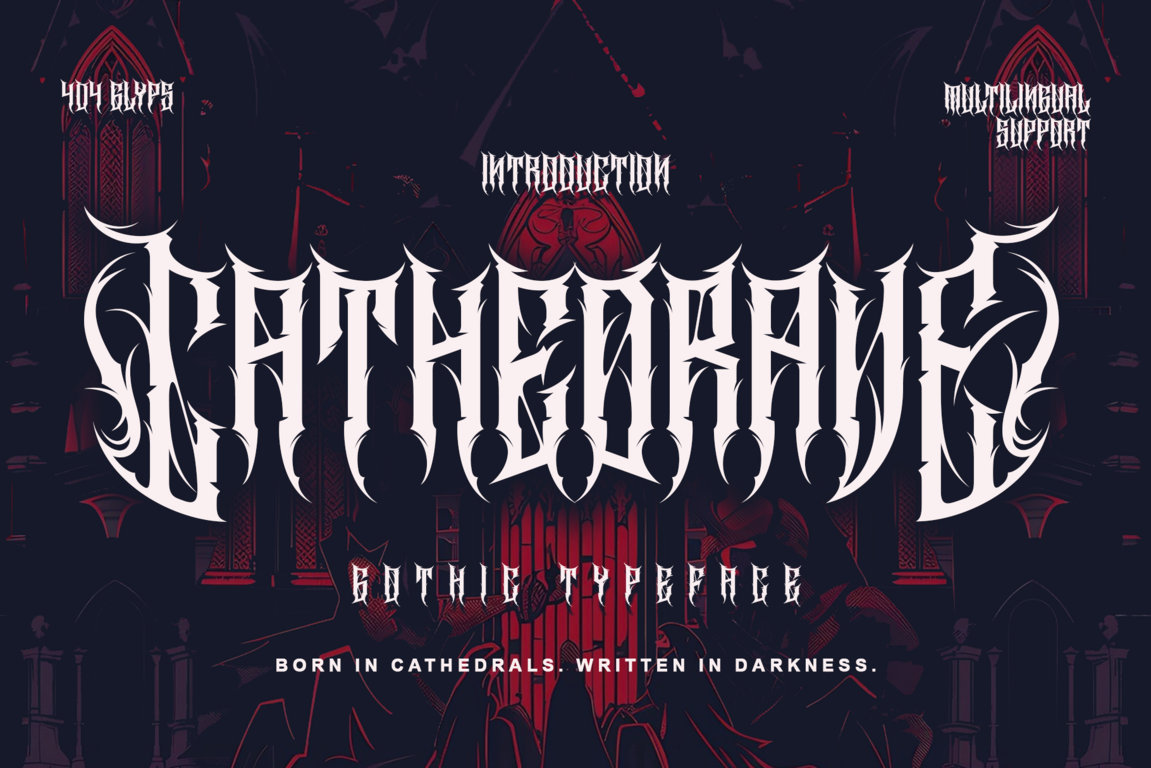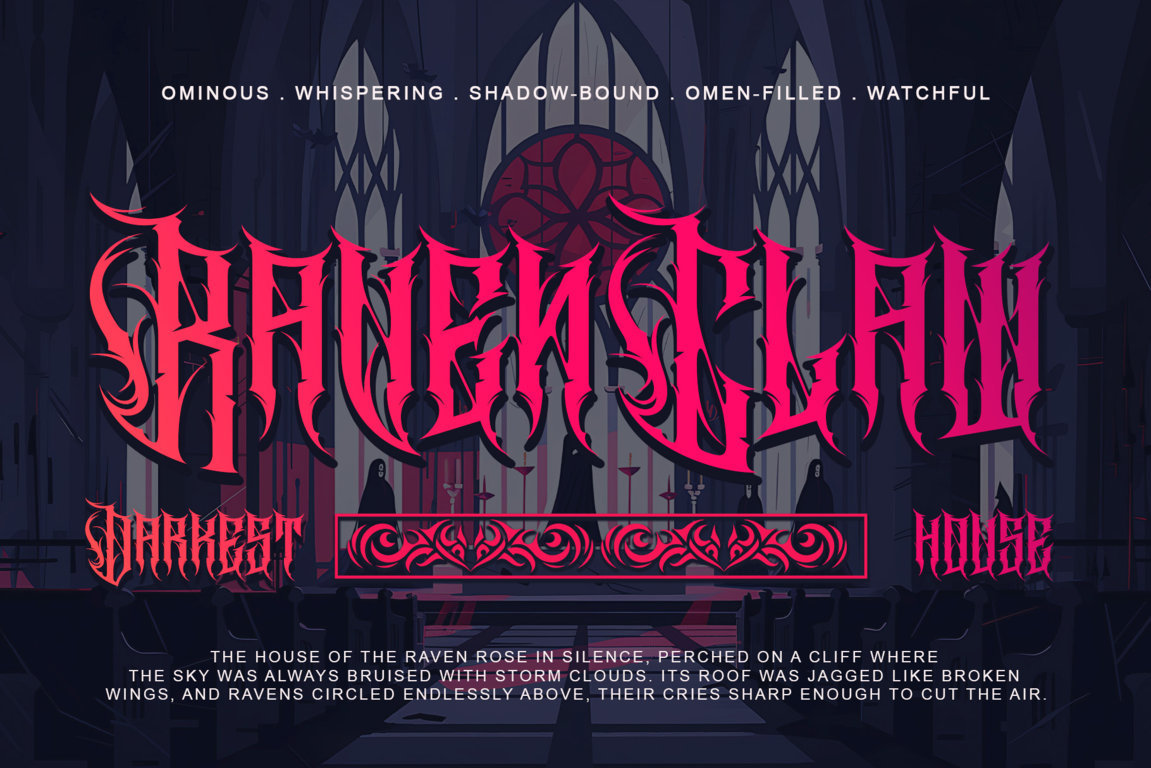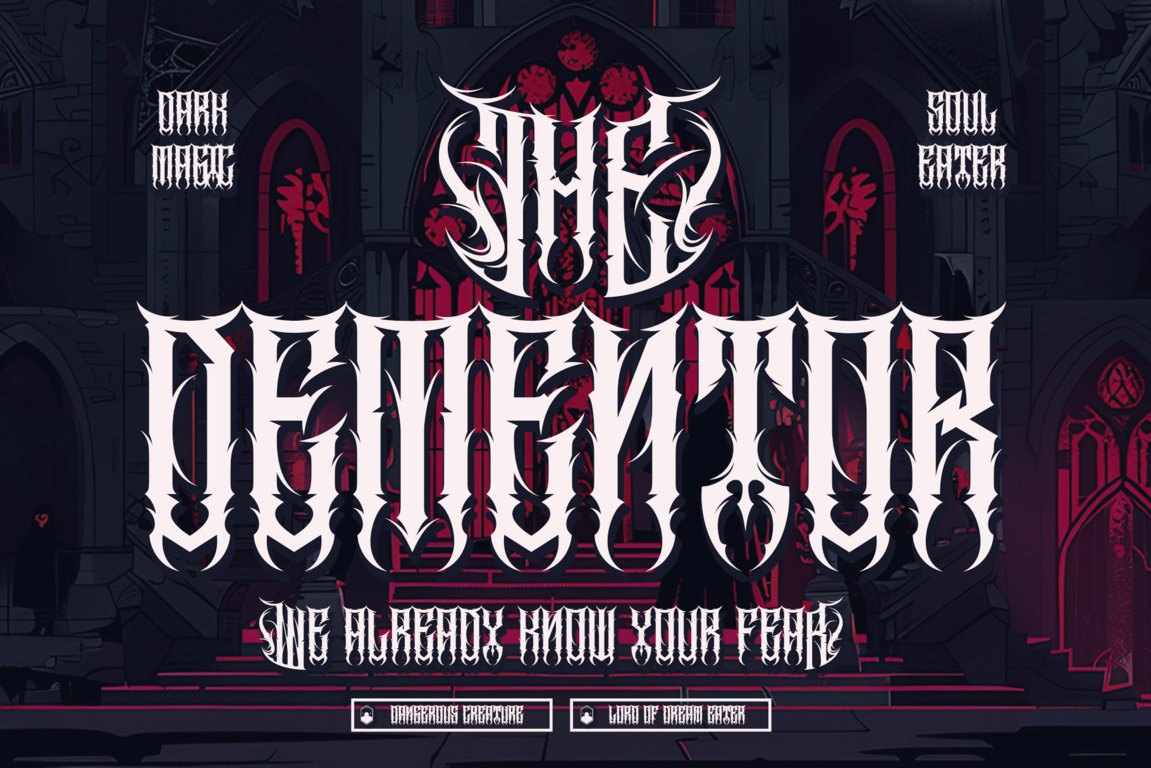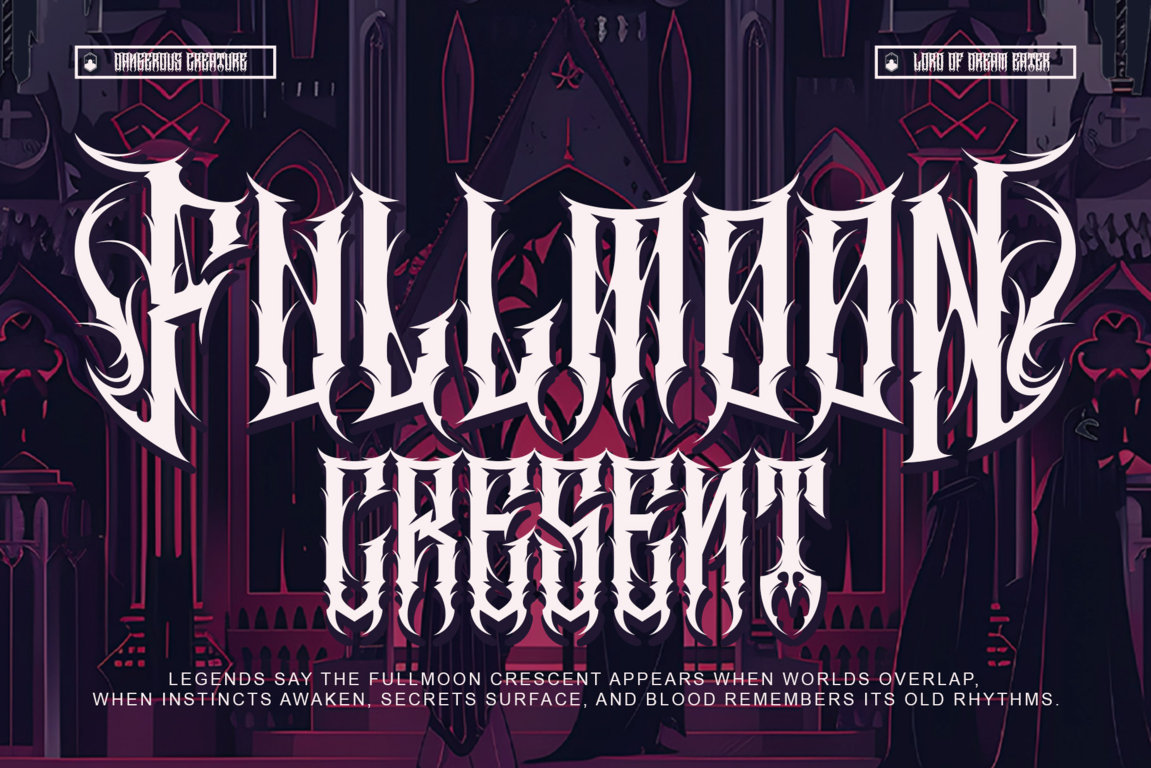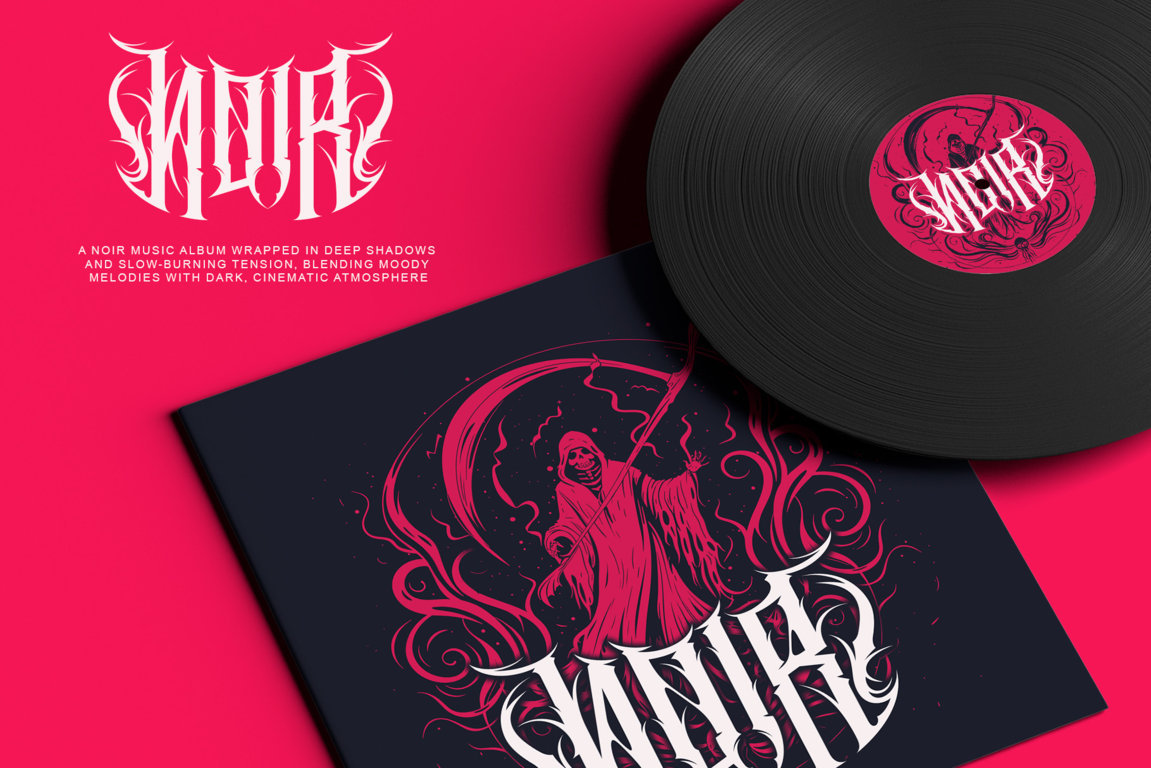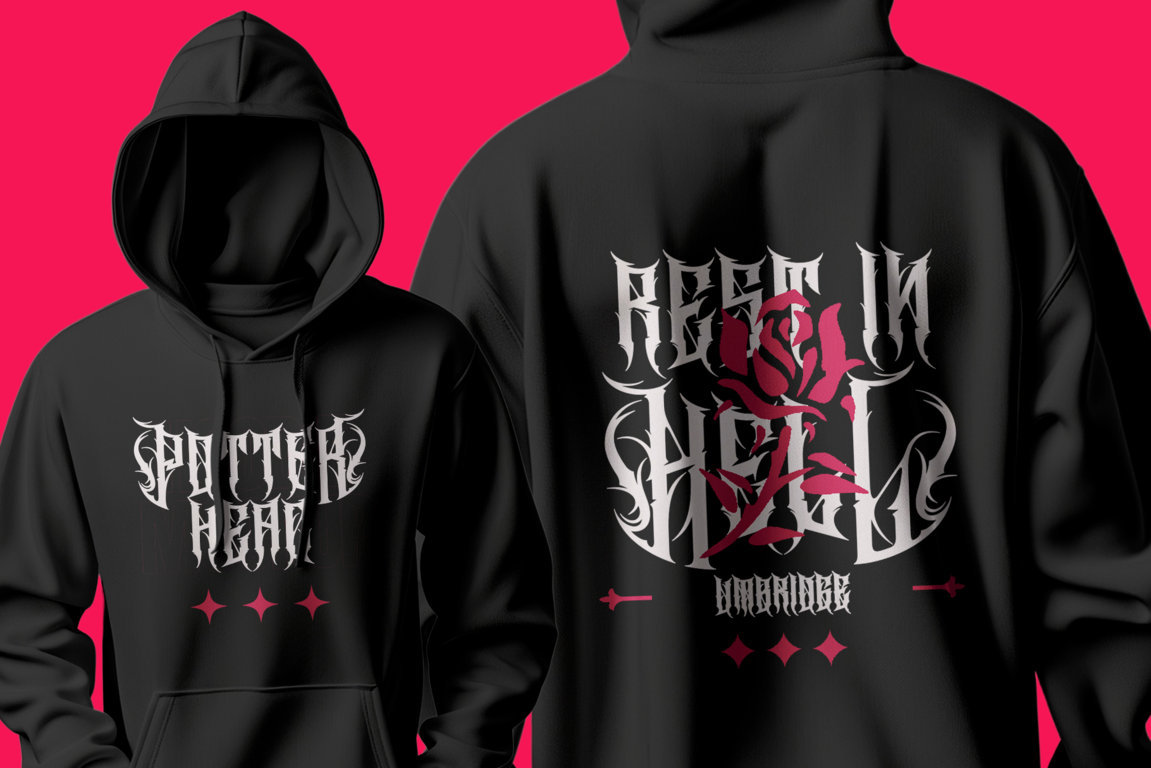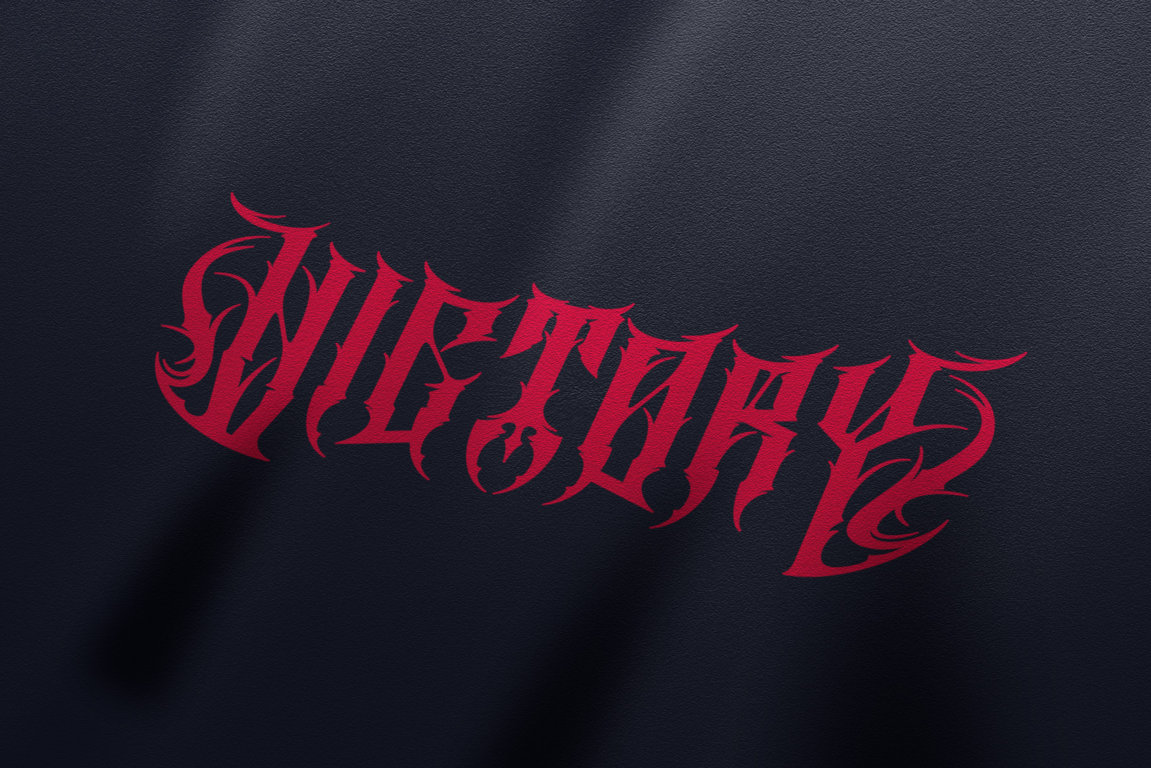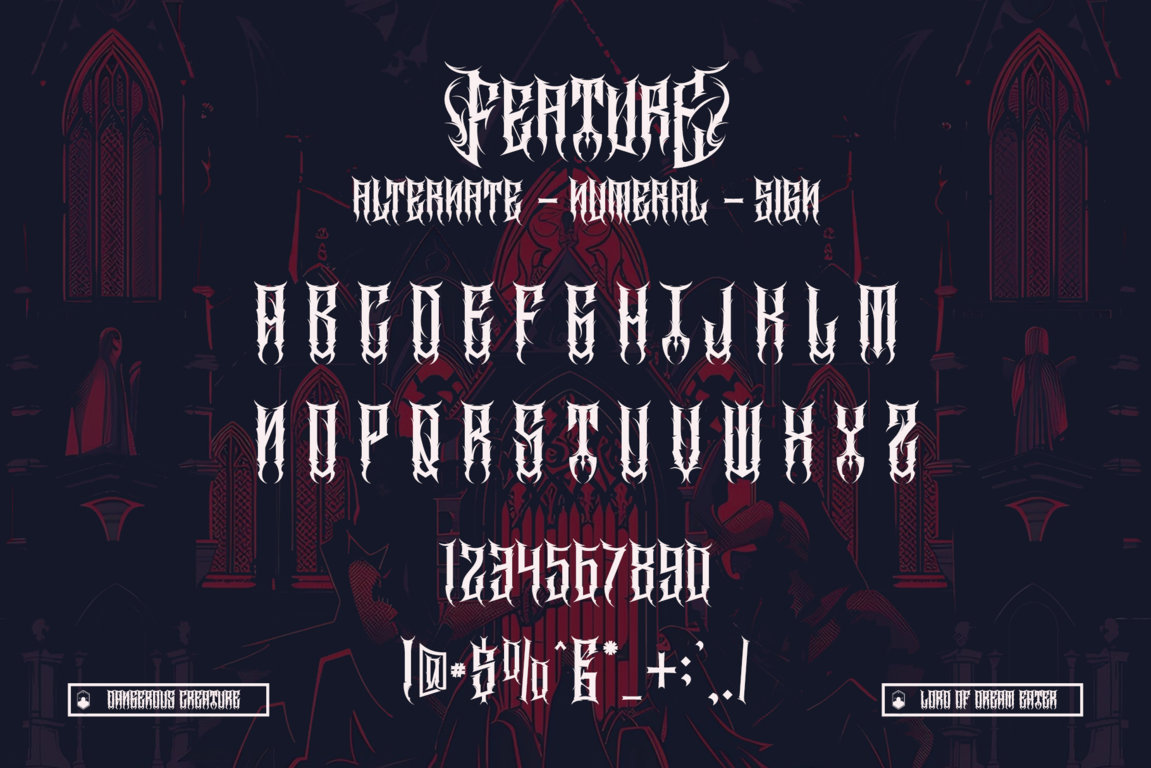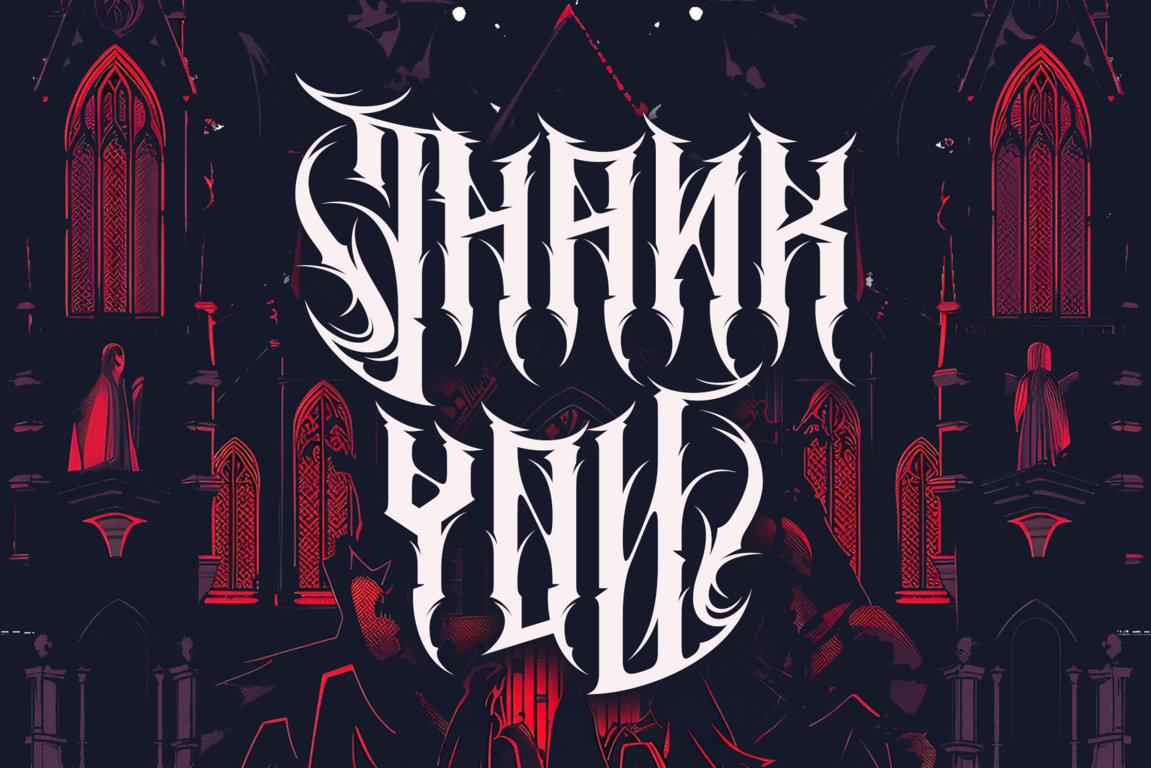
Enter the realm of sacred darkness with Cathedrave, an extreme gothic blackletter font inspired by towering cathedrals, ancient stone engravings, and the mysticism of forbidden manuscripts. Defined by sharp, dramatic strokes, powerful symmetry, and heavy contrast, Cathedrave delivers a bold visual presence that feels carved in stone rather than written with ink. Its structure reflects medieval authority, ritual strength, and architectural precision rooted in Gothic tradition.
Designed for dark fantasy titles, metal band logos, album covers, game branding, tattoo lettering, posters, and cinematic visuals, Cathedrave transforms typography into symbols of power and reverence. Every letter radiates intensity and solemn character, making it ideal for designs that demand dominance, atmosphere, and historical weight. Fully PUA encoded and rich in OpenType features, Cathedrave gives you complete control to craft dramatic, authoritative, and unforgettable visual identities.
• Extreme gothic blackletter display style
• Uppercase letters
• Alternates, swashes, titling characters & ligatures
• Numerals & punctuation
• Multilingual support: ä ö ü Ä Ö Ü ß ¿ ¡